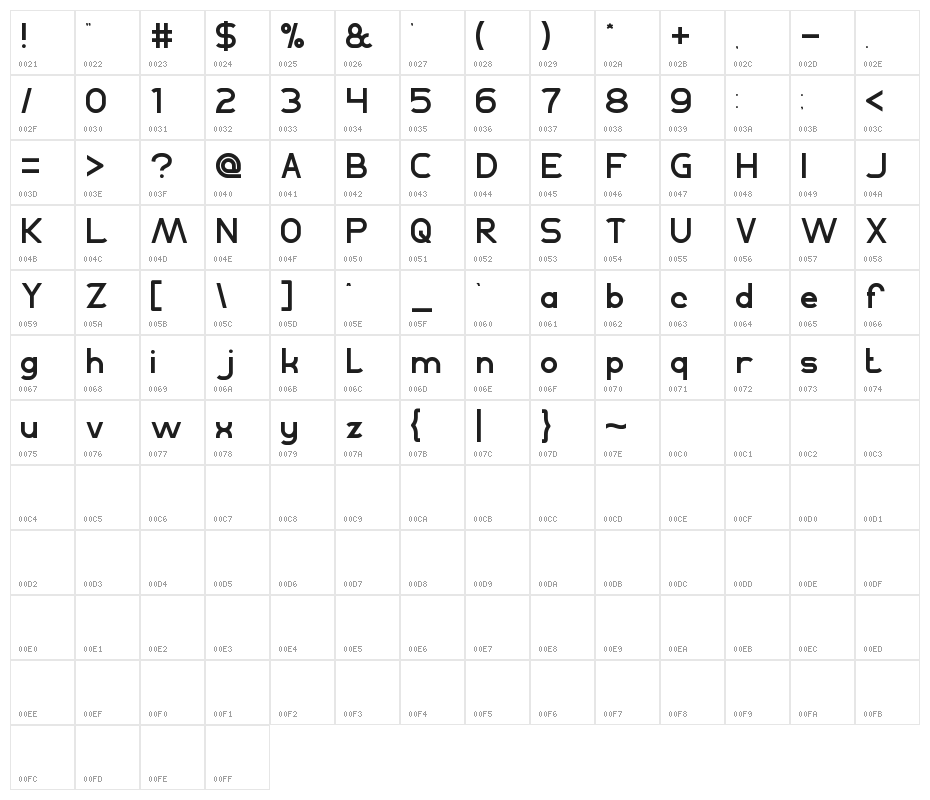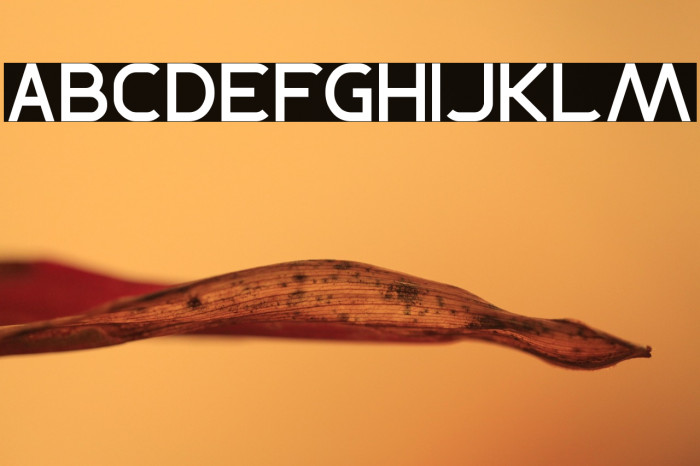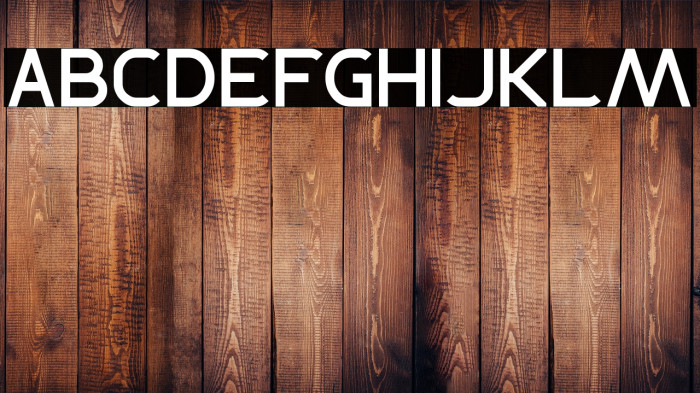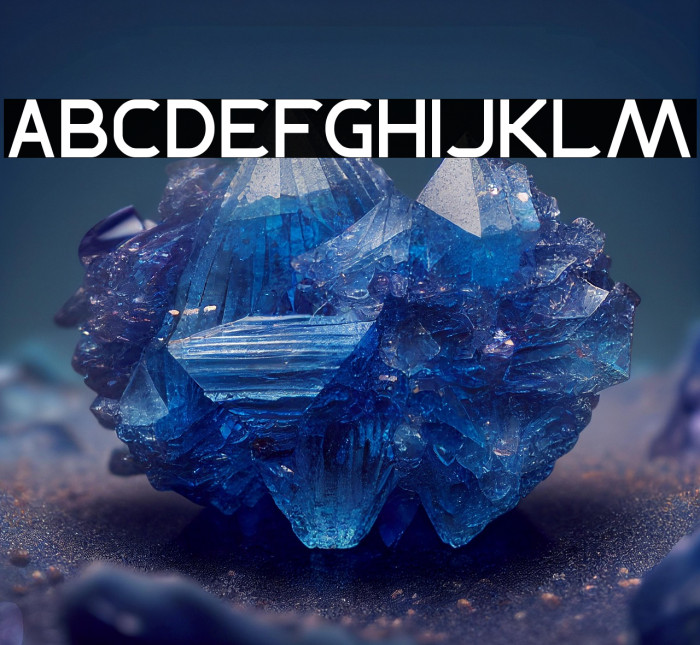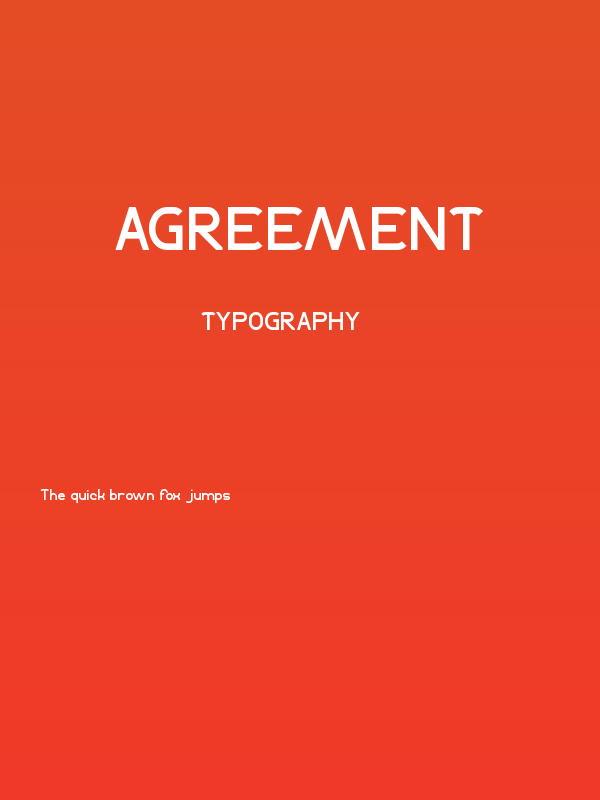
Agreement Font
Agreement Description
This font features a modern and geometric design with a clean and structured appearance. The characters are uniform in width, contributing to a balanced and harmonious look. The uppercase letters are bold and assertive, while the lowercase letters maintain a consistent style with rounded edges, adding a touch of softness to the overall design. The numerals are clear and legible, making them suitable for various applications. Special characters are well-integrated, maintaining the font's cohesive aesthetic. This font is versatile, suitable for both digital and print media, and can be used effectively in branding, advertising, and editorial design.
| Use Case | Headlines, Logos, Branding |
| Proposed Projects | Ideal for branding, advertising, editorial design, and digital media. |